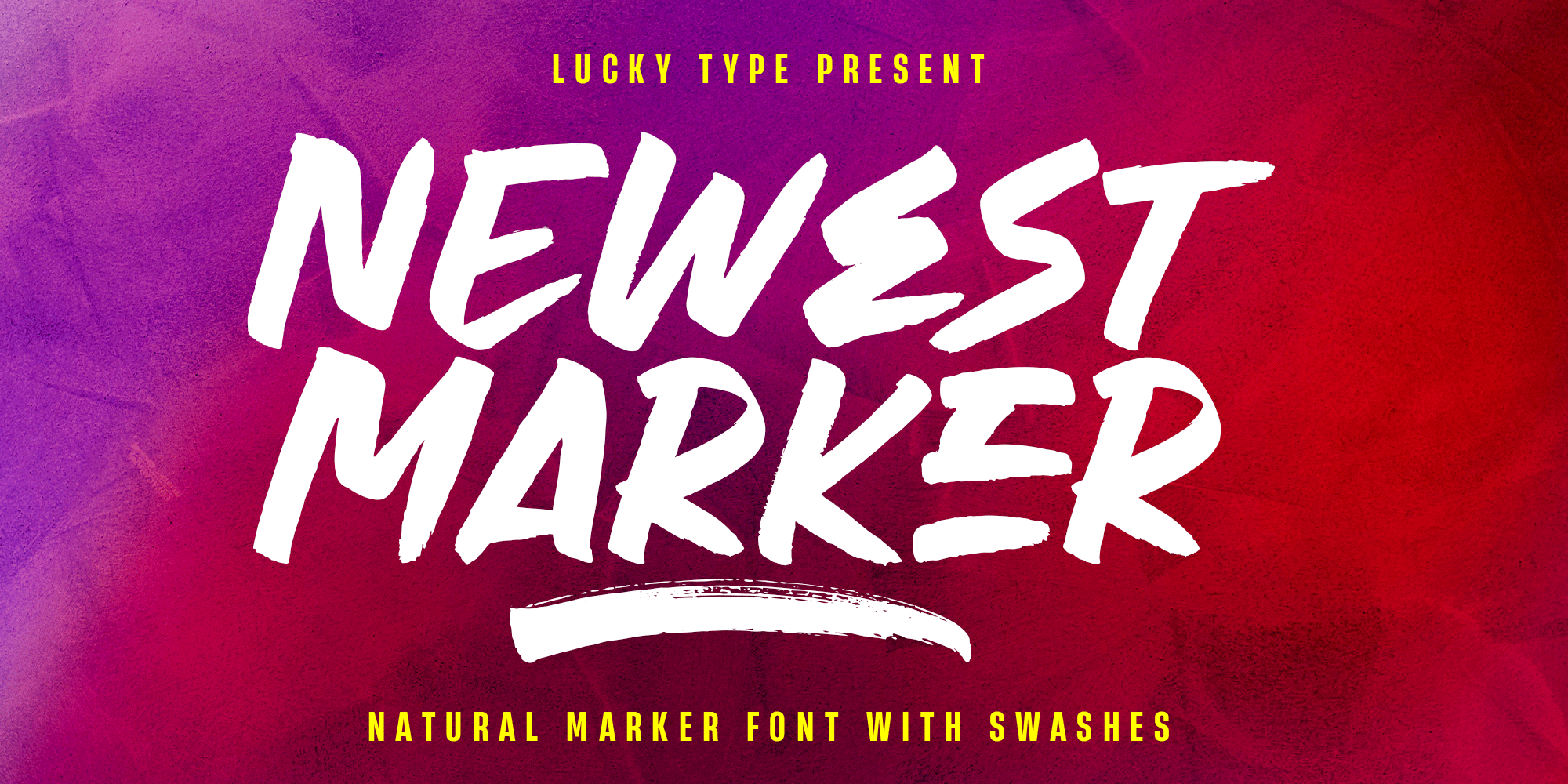
Where to Use Newest Marker Font?
This dynamic font is perfect for:
• Urban streetwear branding & merchandise
• Skateboard/surf company logos
• Music festival posters & gig flyers
• Youth-targeted advertising
• DIY zines & alternative publications
• Social media graphics with attitude
Why Newest Marker Font Stands Out
This isn't just another marker font – it delivers:
→ Authentic ink bleed and texture variations
→ Variable stroke pressure mimicking real handwriting
→ Energetic baseline with natural bounce
→ Rough edges that maintain perfect readability
→ Special "dripping ink" alternate characters
Alternate rough-edged glyphs